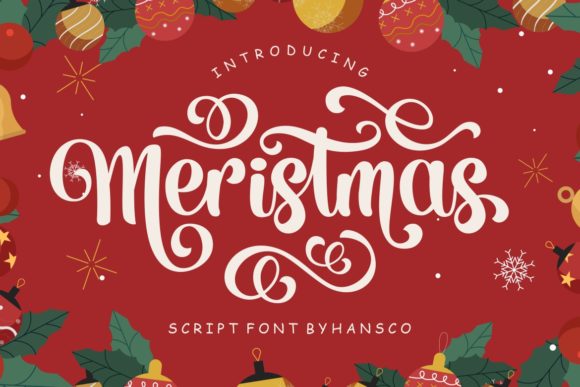
**Meristmas: A Script Font for Unforgettable Holiday Designs**
In the joyous spirit of festivity, let Meristmas, a captivating script font from HansCo, dance across your creative endeavors. Its delicate strokes, reminiscent of hand-lettered notes, exude warmth and charm, promising to transform your holiday designs into cherished keepsakes.
**A Touch of Elegance for Every Occasion**
Whether you're crafting heartfelt Christmas cards, designing enchanting invitations for winter weddings, or adding a touch of whimsy to your seasonal marketing materials, Meristmas effortlessly captures the magic of the holidays. Its graceful lines and playful flourishes evoke a sense of nostalgia, making it an ideal choice for projects that call for a nostalgic or vintage aesthetic.
**Enchanting Versatility**
Meristmas' enchanting versatility extends beyond seasonal designs. Its elegant curves lend a touch of sophistication to branding and logo projects. Its charming personality shines through in social media graphics, creating posts that captivate and engage your audience. And when used in website design, Meristmas weaves a welcoming ambiance, inviting visitors to explore your digital space with delight.
**Bring Your Creative Visions to Life**
With Meristmas as your design companion, let your imagination soar and create projects that resonate with your audience. Its adaptability makes it a valuable asset for any designer, whether you're a seasoned professional or just starting your creative journey.
**Key Features:**
* Exquisite script font with a festive touch
* Ideal for holiday designs, invitations, branding, and more
* Versatile and adaptable for a wide range of projects